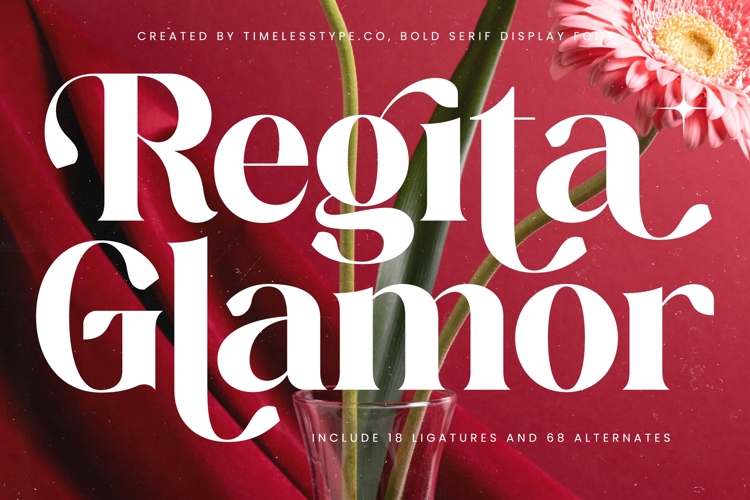
Regita Glamor - Bold Serif Display Font
Regita Glamor is a bold serif display font that combines luxury, elegance, and dramatic presence in every curve. Its high-contrast strokes, sharp serifs, and refined terminals make it a striking choice for designers who want their typography to stand out with both power and grace. Featuring 18 ligatures and 68 alternates, this font offers endless stylistic possibilities, allowing text to be transformed into an expressive visual centerpiece. Each alternate provides variation that keeps designs fresh, while the ligatures add fluidity and sophistication.
This typeface is crafted for headlines, where maximum impact is essential. It shines in fashion magazines, editorials, and beauty campaigns, where the goal is to communicate prestige and timeless style. In branding and logo design, Regita Glamor speaks of exclusivity and memorability, making it a perfect fit for high-end labels, boutique businesses, and premium products. Its commanding letterforms ensure any brand identity feels bold, modern, and unforgettable.
The font is equally powerful in packaging design, particularly for cosmetics, perfumes, jewelry, and gourmet goods, where elegance must be conveyed instantly. In movie titles and film posters, Regita Glamor delivers cinematic drama, pairing bold weight with refined detail. For advertising campaigns, it provides clarity and glamour, helping slogans and taglines stand out in both print and digital contexts.
Beyond print, Regita Glamor thrives in the digital world. It enhances social media graphics, website headers, and promotional content with striking visibility and refined beauty. It is also an excellent choice for wedding invitations, event branding, and lifestyle projects, where sophistication is key. Thanks to its multilingual support, the font adapts seamlessly across cultures and markets, making it versatile for global design projects.
More than a typeface, Regita Glamor is a design statement. Its ability to merge boldness with elegance ensures that any project—whether editorial, branding, packaging, advertising, or digital media—will exude refinement and glamour. With its unique blend of style, flexibility, and artistry, Regita Glamor elevates typography into unforgettable design.